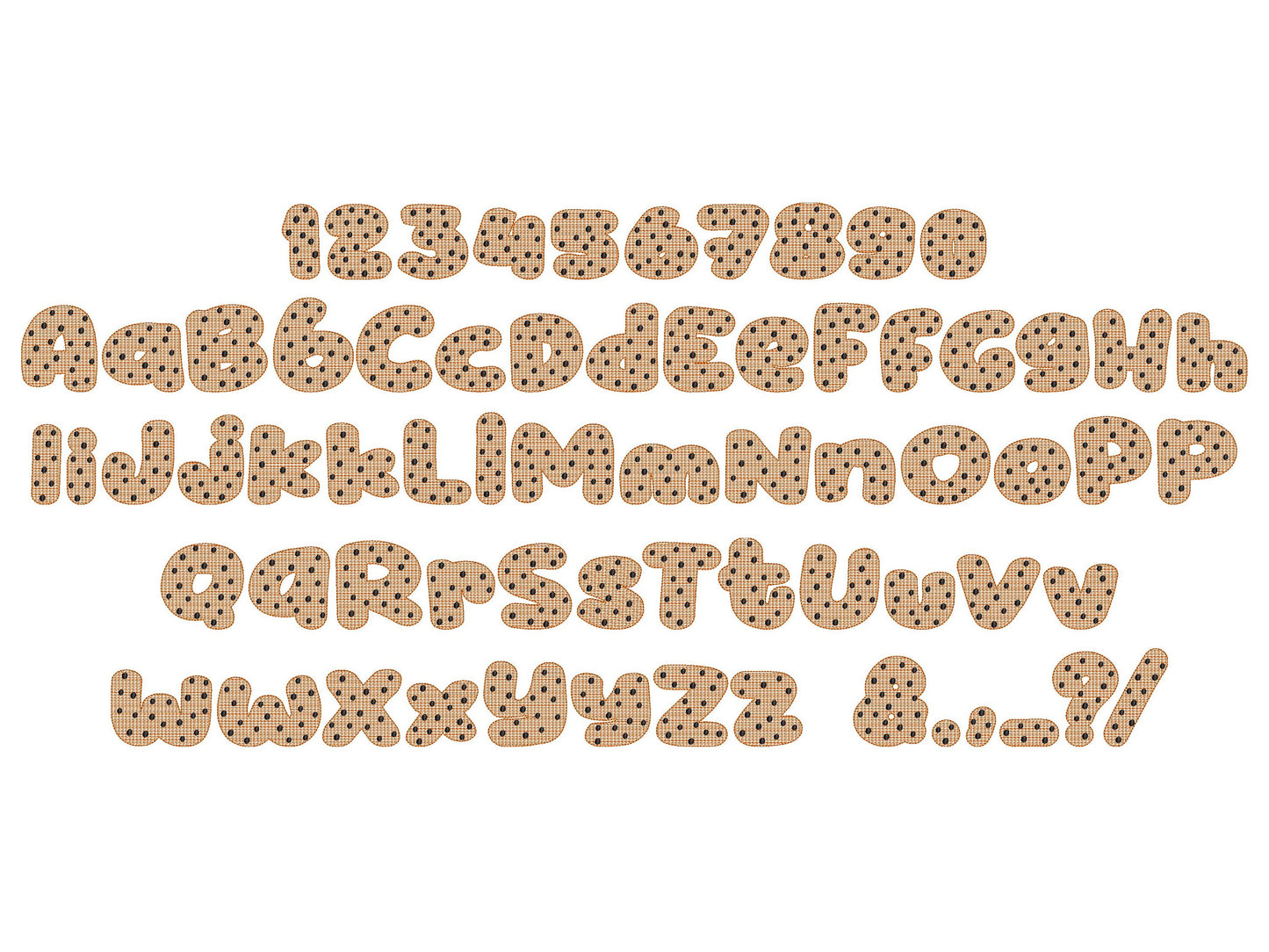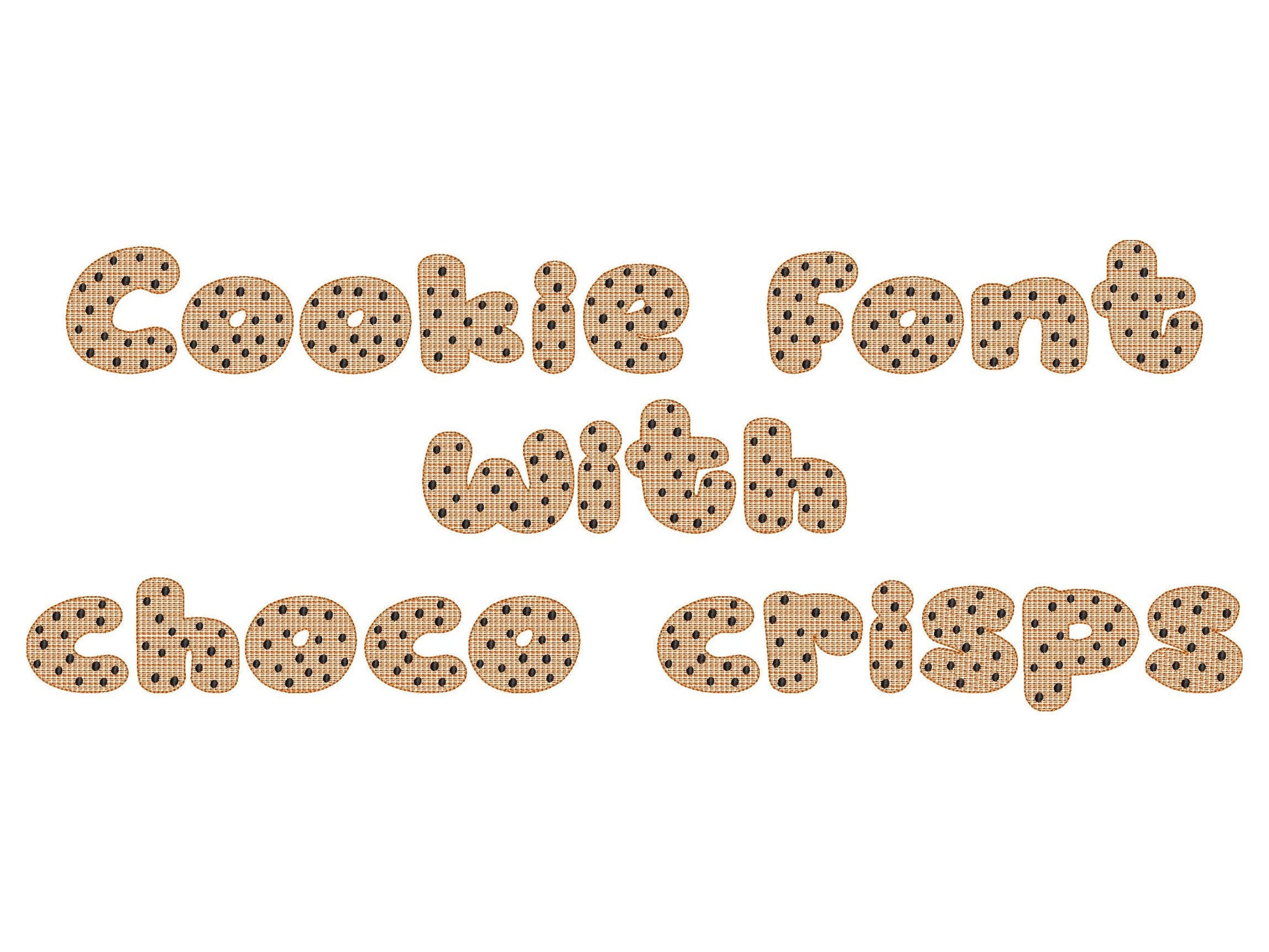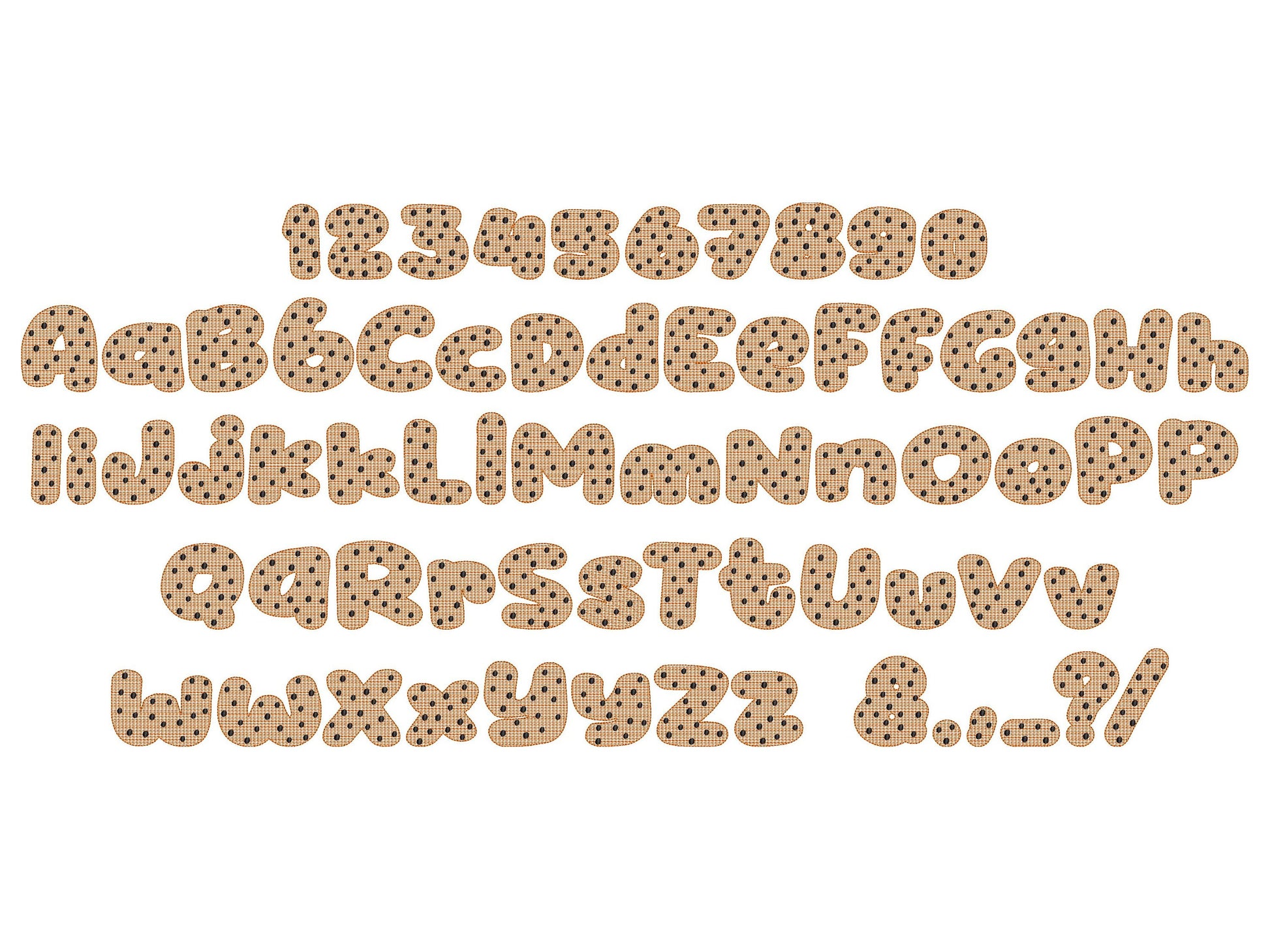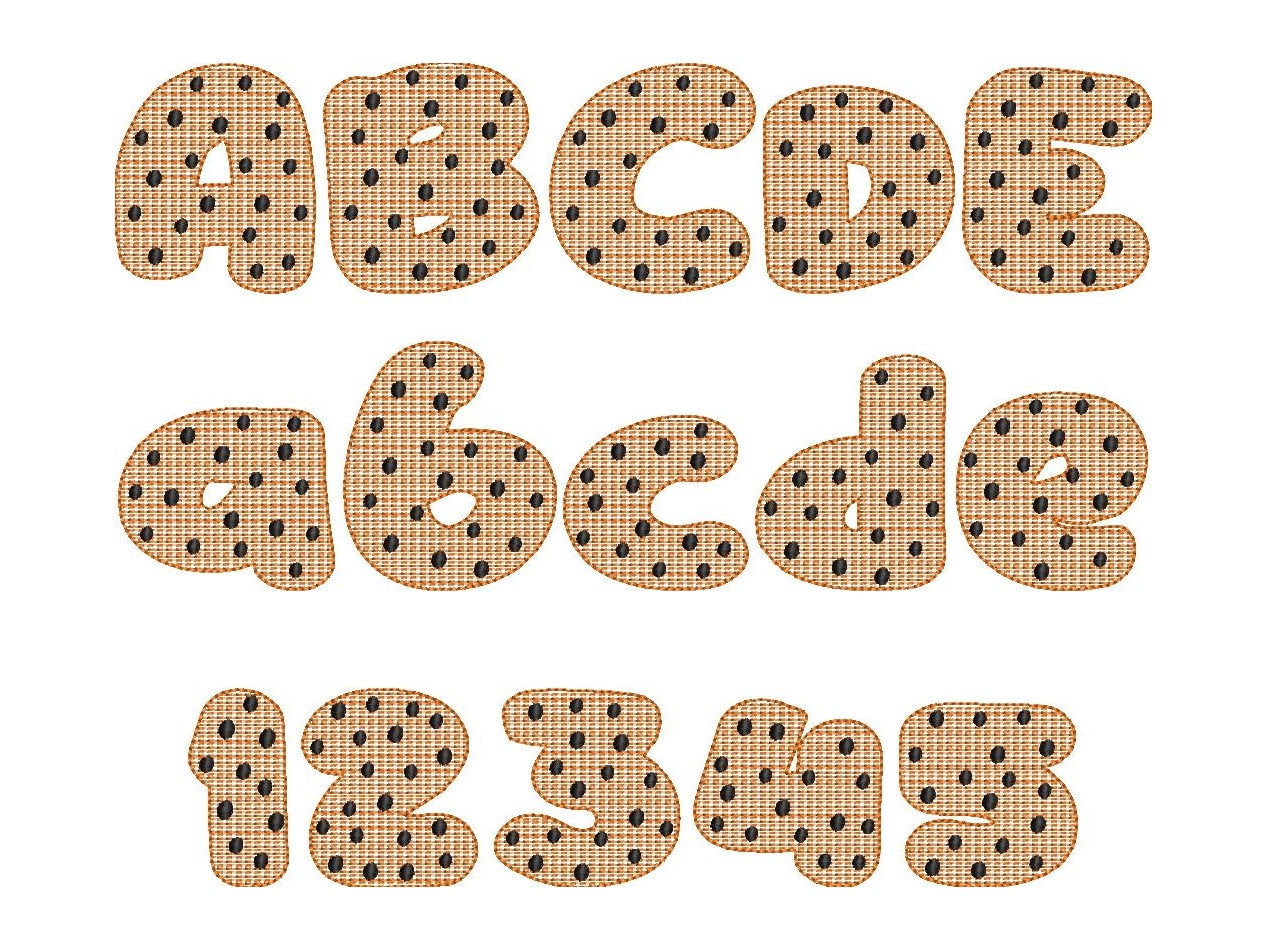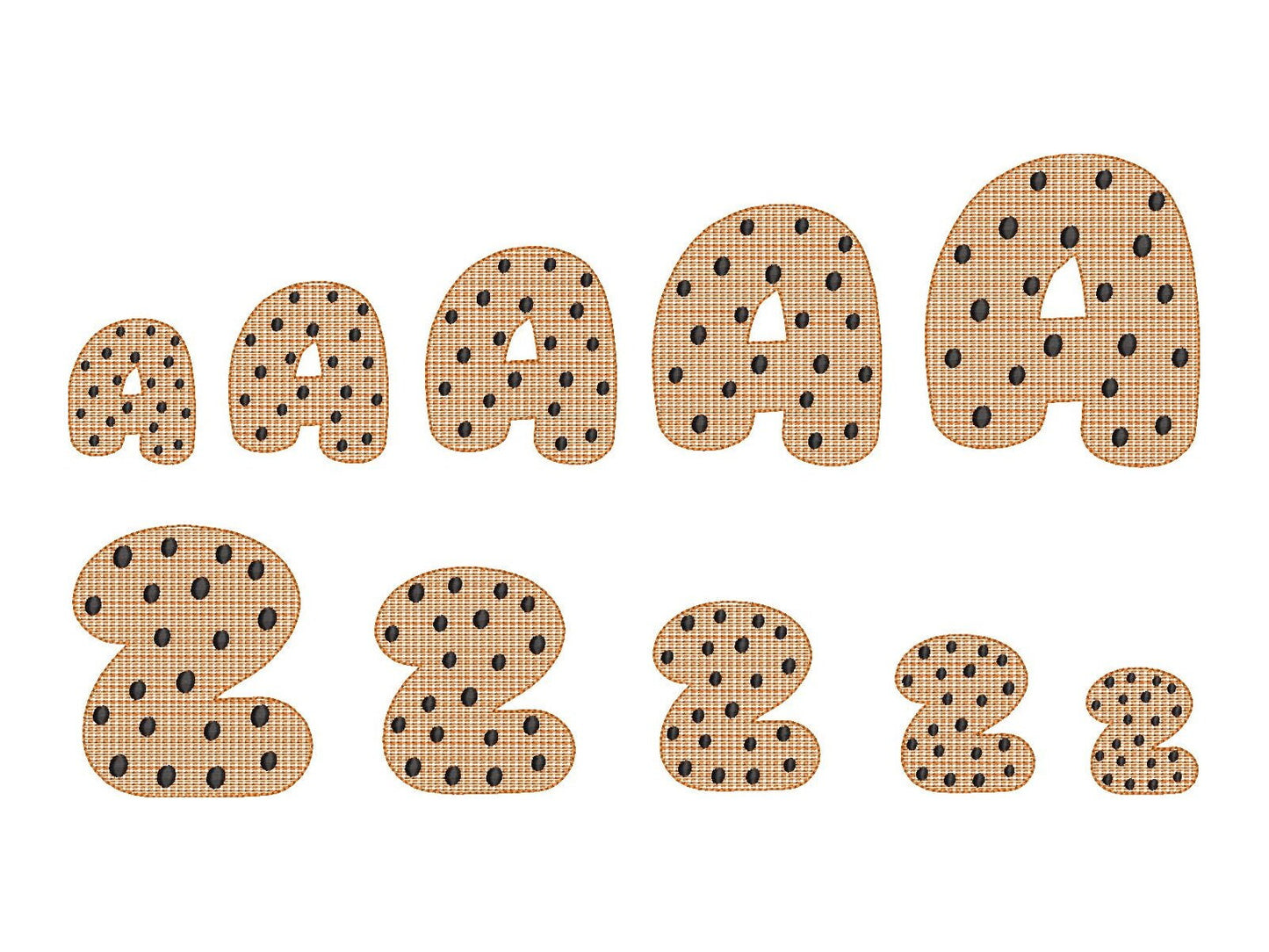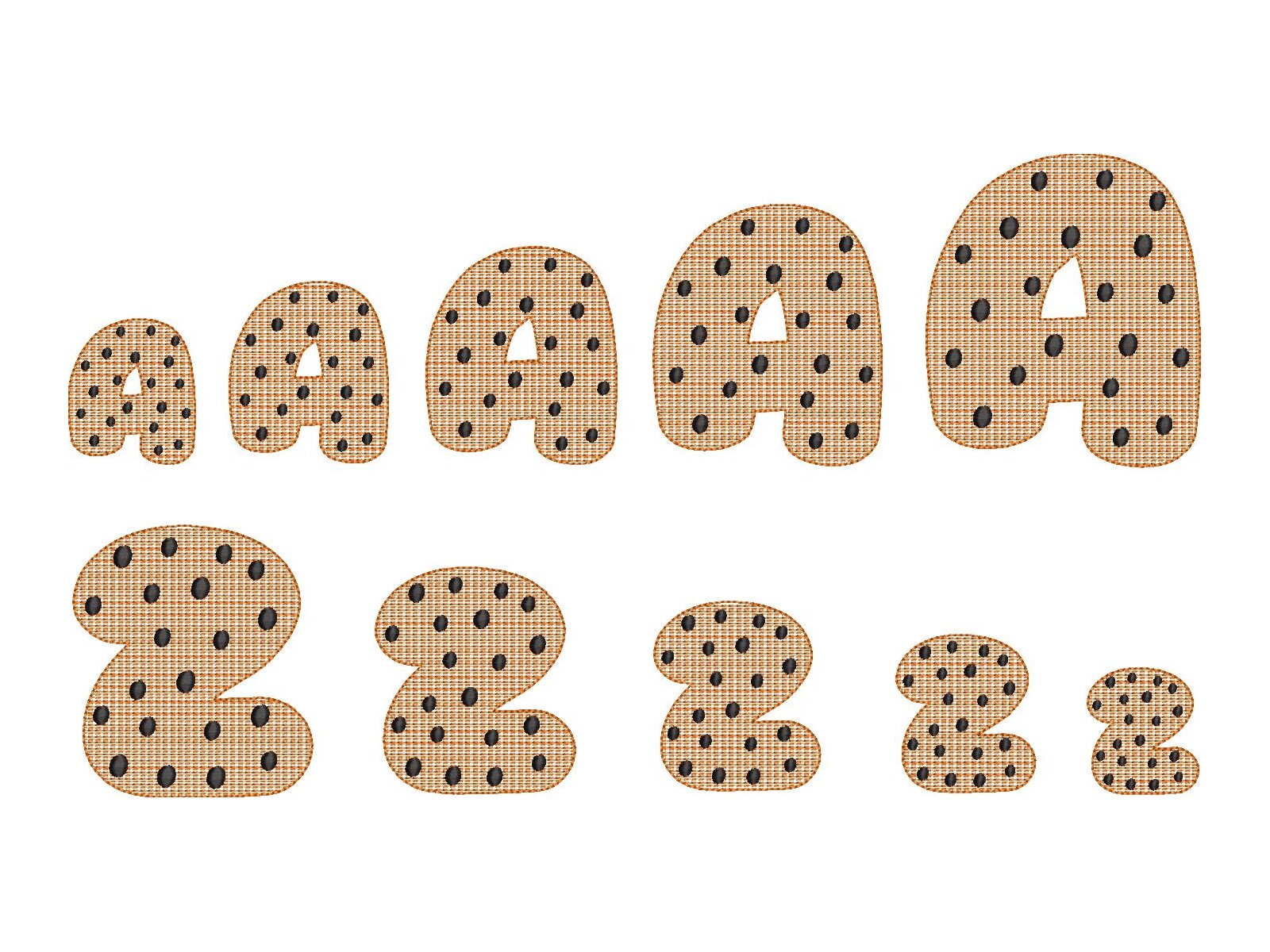
Or click to open the linkA chocolate chip cookie font in light fill stitch, a sweet kids' alphabet for names on shirts, aprons and bakery gifts.
Uppercase and lowercase letters, numbers and punctuation in five sizes: 2, 2.5, 3, 3.5 and 4 inches.